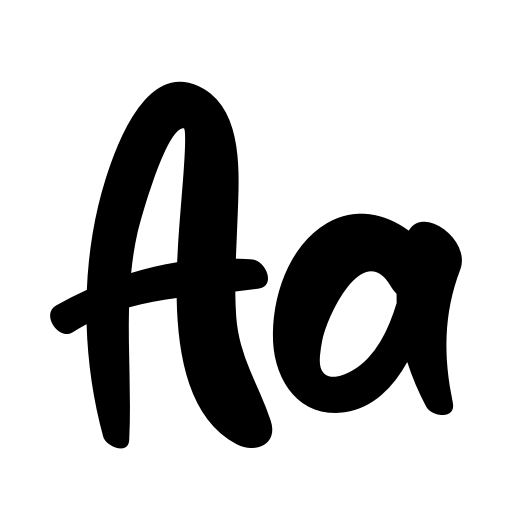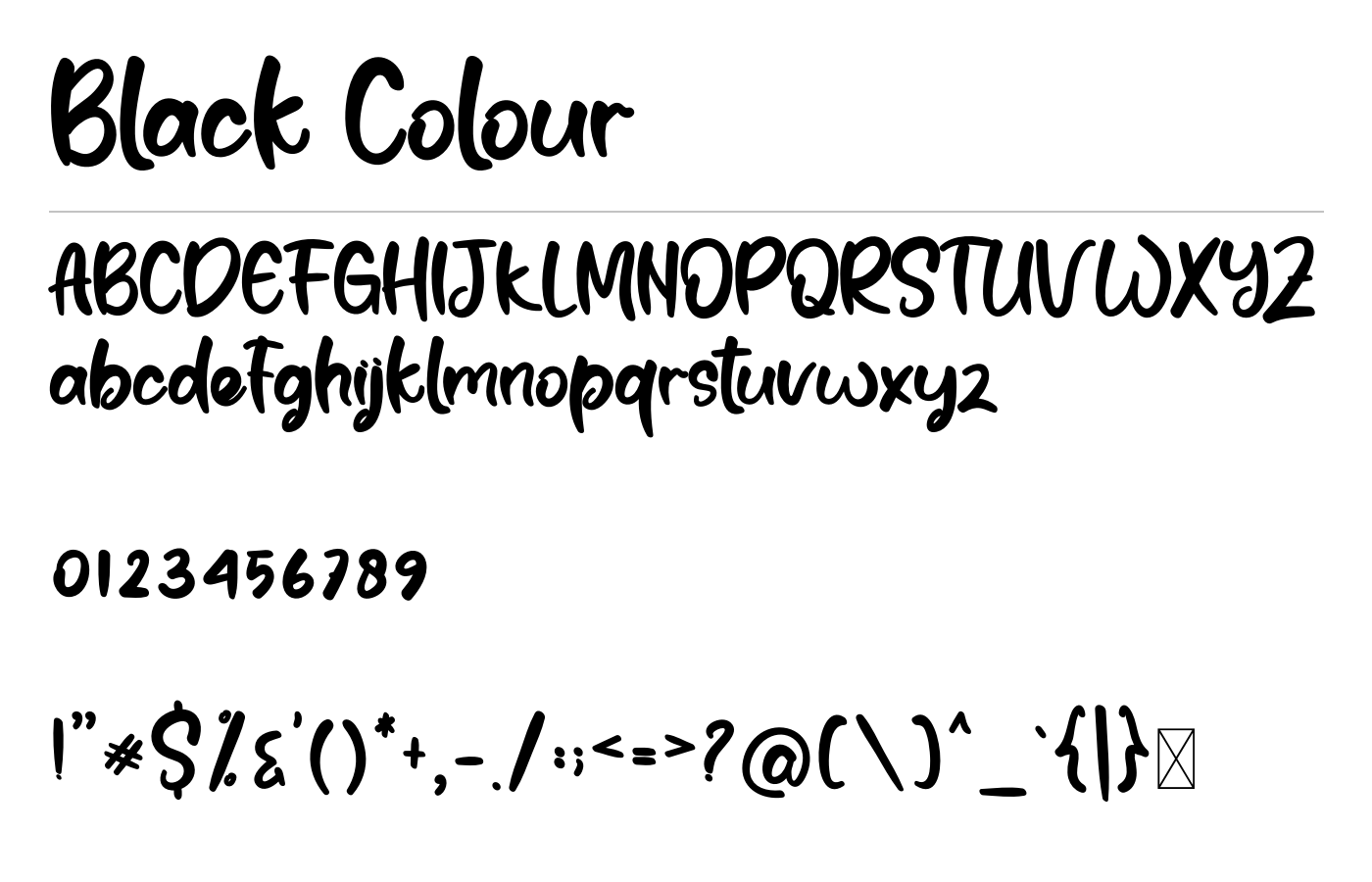
Black Colour is a playful, bold handwritten font with lively, rounded strokes that create a friendly and approachable feel. Its casual letterforms and consistent weight make it ideal for designs that want to convey warmth and creativity, such as informal branding, posters, or children's materials. This font works well where a personal, fun touch is needed without sacrificing readability.
Black Colour Font
About Black Colour Font